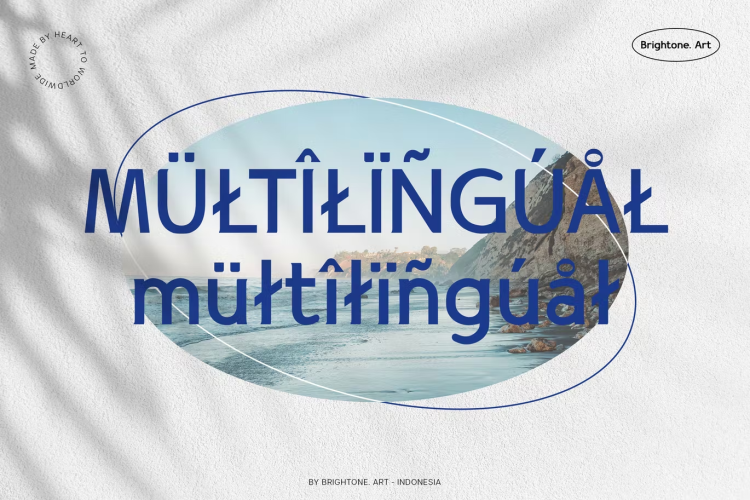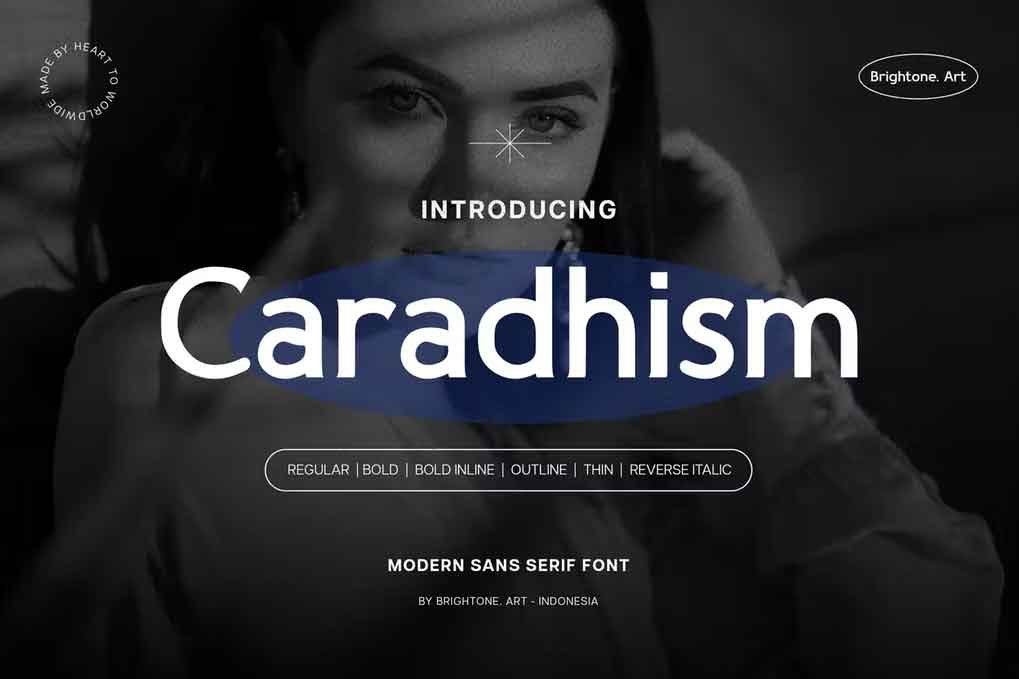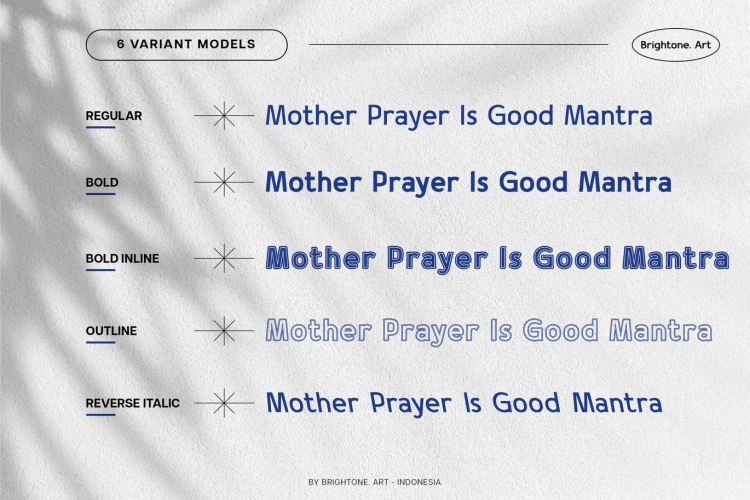
Caradhism Modern Font
Caradhism is modern Sans Serif font font with some little glyphic style includes: Caradhism comes in 6 different styles: Modern Sans Serif style for your logo lettering,…
Caradhism
is modern Sans Serif font font with some little glyphic style includes:
Caradhism comes in 6 different styles:
Modern Sans Serif style for your logo lettering, logo, label, packaging, sticker, branding and many more
Where Caradhism Modern Font works best
Caradhism Modern Font stays legible at small sizes, which makes it a strong choice for navigation, buttons and dashboards in web design and app interfaces.
Clean sans serifs like Caradhism Modern Font are the default language of SaaS, fintech and product branding.
What is Caradhism Modern Font good for?
Caradhism Modern Font is a Sans Serif Fonts typeface tagged Bold, Branding, Craft, Modern. It works well for headlines, logos, posters, social media graphics and branding projects that need a distinctive sans serif fonts look.